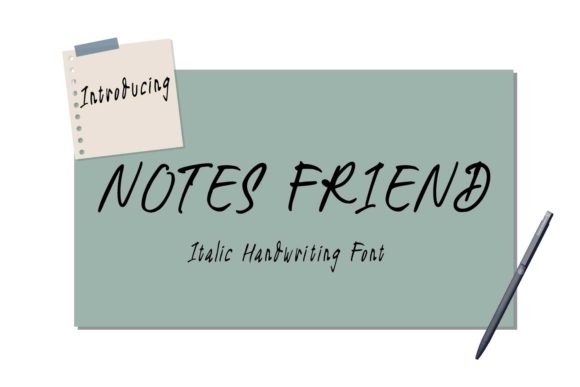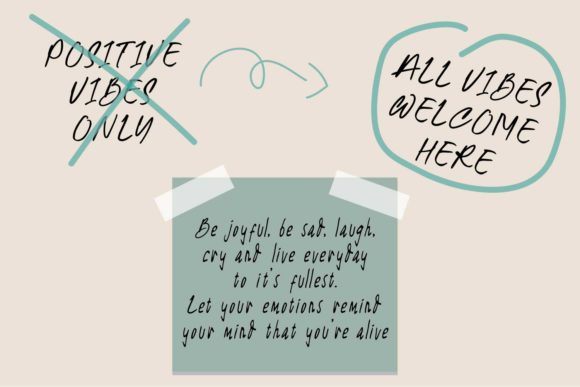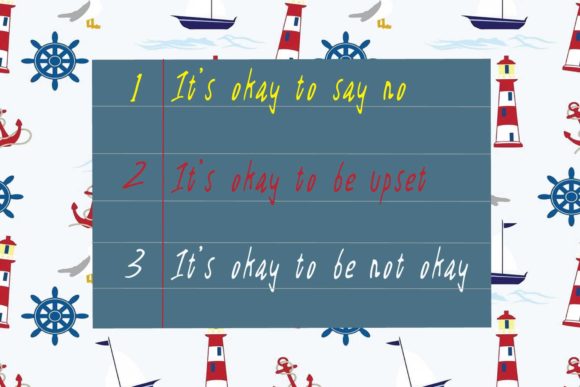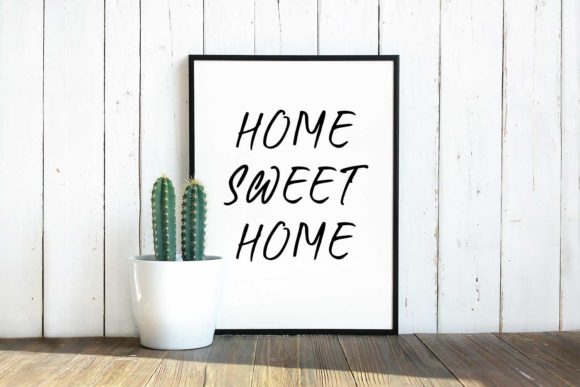
About Notes Friend Font
Notes Friend is a delightful and approachable handwritten font that adds a touch of friendliness and warmth to your creative projects. Whether you’re seeking fonts for Instagram posts, calligraphy scripts for DIY projects, or any other creative idea, Notes Friend is the perfect choice to transform your vision into a true piece of art.
With its simple and clean letterforms, Notes Friend exudes a sense of simplicity and authenticity. The handwritten style gives it a personal and intimate touch, making it ideal for conveying heartfelt messages, quotes, or adding a personal touch to your designs.
Notes Friend is versatile and adaptable, making it suitable for a wide range of applications. Whether you’re designing social media graphics, creating personalized stationery, crafting handmade cards, or enhancing your DIY projects, this font adds a touch of charm and personality.
The legibility of Notes Friend ensures that your message is clear and easy to read. The smooth and consistent strokes make it effortless for viewers to engage with your content, while the friendly nature of the font creates an inviting and relatable atmosphere.
The simplicity and understated elegance of Notes Friend make it a perfect complement to various design styles. It can effortlessly blend into minimalist designs, adding a touch of warmth and character, or stand out in bold and vibrant compositions, creating a striking contrast.
Whether you’re working with digital designs or physical projects, Notes Friend brings a sense of authenticity and human touch. Its natural flow and organic shapes give your creations a handmade feel, conveying a sense of craftsmanship and care.
Notes Friend is equally well-suited for both digital and print applications. It looks fantastic on social media posts, blog graphics, invitations, packaging, and more. Its versatility allows you to seamlessly integrate it into various mediums, bringing a consistent and cohesive look across your creative endeavors.
In summary, Notes Friend is a simple and friendly handwritten font that elevates your creative ideas into true works of art. Its versatility, legibility, and warm character make it ideal for Instagram posts, calligraphy scripts, DIY projects, and beyond. Let Notes Friend be your creative companion and witness how it adds a personal touch to your designs.